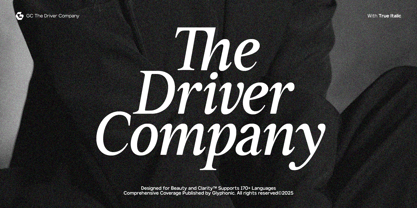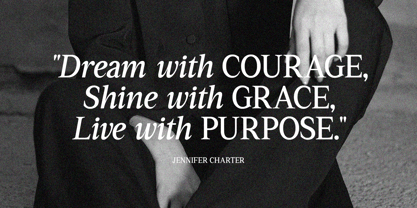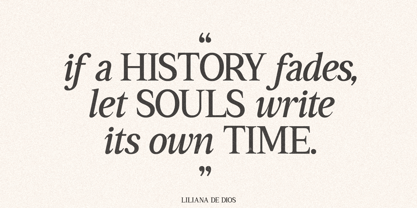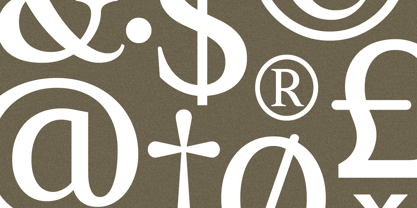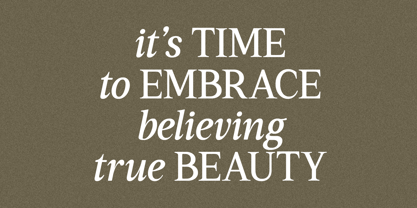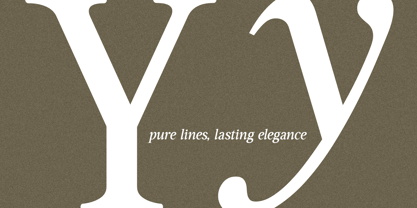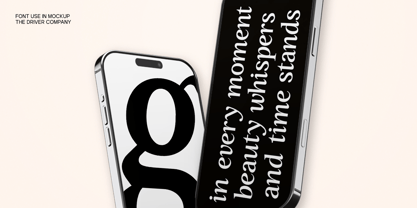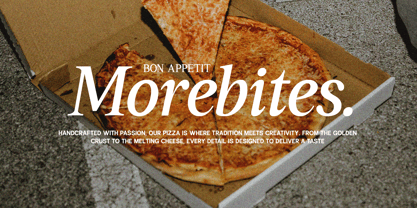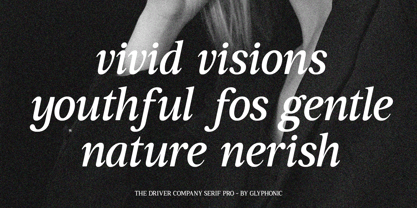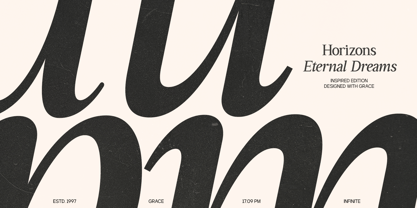
GC Driver Company
The GC Driver Company Font Family was designed by Muhammad Hafiizh Solana and published by Onyx Studio. GC Driver Company contains 2 styles and family package options. More about this family
GC Driver Company — Elegant Motion in Serif Form is a refined italic typeface designed to blend sophistication, rhythm, and expressive charm. With flowing curves and sharp serifs, it captures a timeless aesthetic that feels both classic and contemporary. Perfect for editorial titles, luxury branding, packaging, and expressive logotypes, this font brings personality and movement to every letterform. Each stroke is crafted with precision and balance, giving GC Driver Company a distinctive elegance that stands out in modern creative projects. Features: Uppercase & Lowercase Numbers & Punctuation Elegant Italic Construction Multilingual Support (170+ Languages) Bring expressive elegance and refined motion to your typography with GC Driver Company.